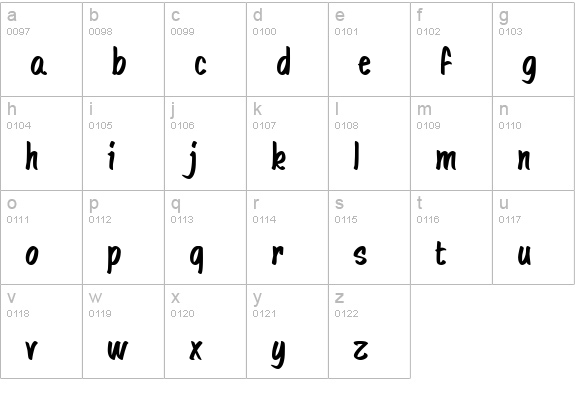
TheEnd BB Font Details
TheEnd BB font is a modern and stylish typeface that exudes elegance and sophistication. With its bold and eye-catching design, this font is perfect for creating impactful headlines, titles, and branding materials. The sleek lines and unique letterforms make TheEnd BB font stand out from the crowd and add a touch of flair to any design project. Best of all, TheEnd BB font is available for free download at FontsMarket.com. Whether you're working on a personal project or a professional design, you can easily access this stunning font and elevate your creations to the next level. Don't miss out on the opportunity to enhance your designs with TheEnd BB font - download it for free today!